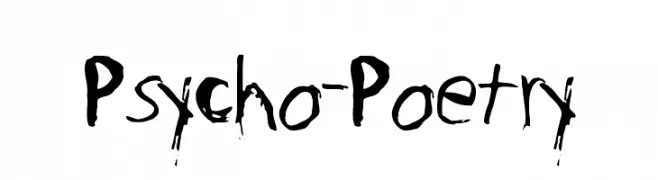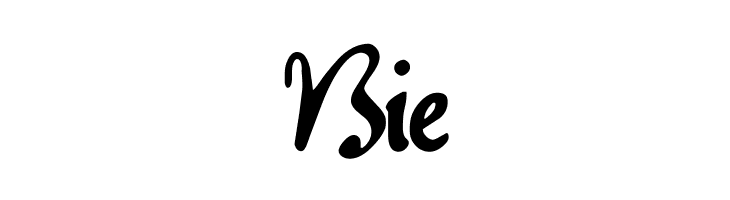
A raw, edgy font with jagged strokes and a distressed, graffiti-like appearance.
A whimsical, hand-drawn font with tall, narrow letters and playful curves.
A decorative and gothic font with sharp serifs and intricate details.
A bold, graffiti-inspired font with sharp, angular lines and high contrast.
A bold, expressive script font with playful curves and dynamic flow.